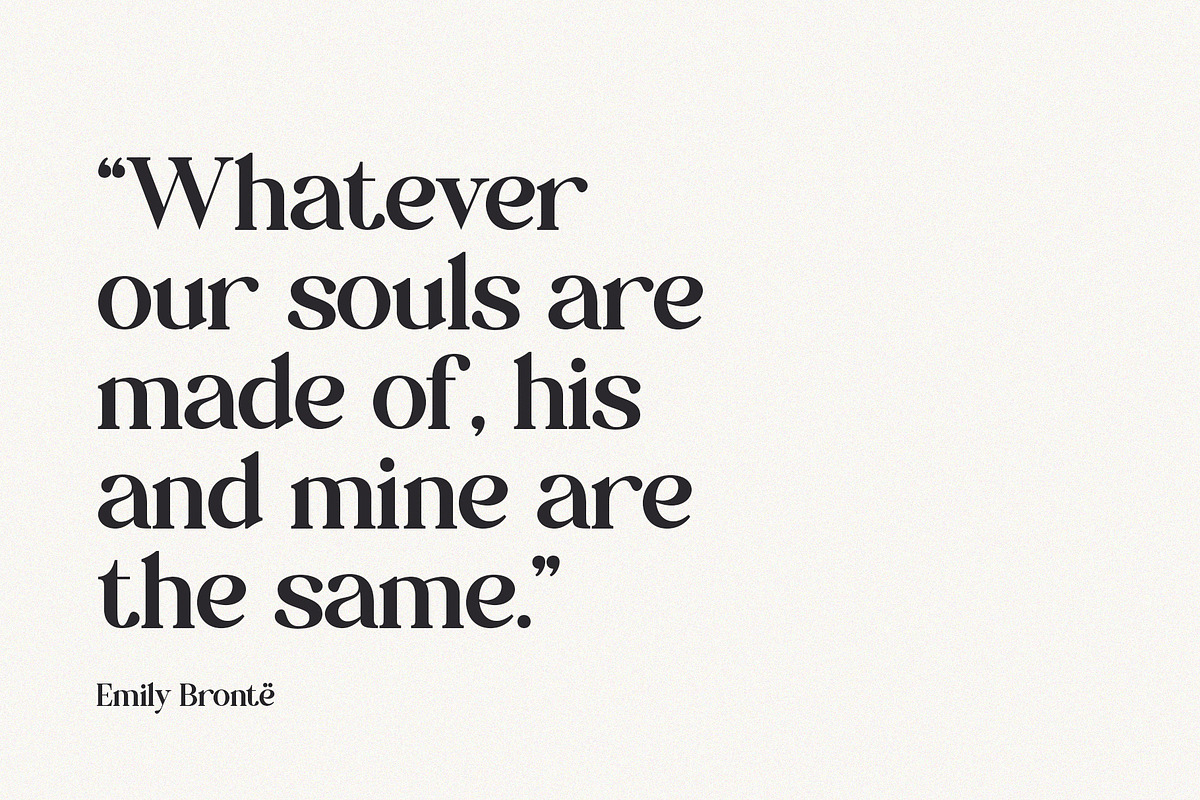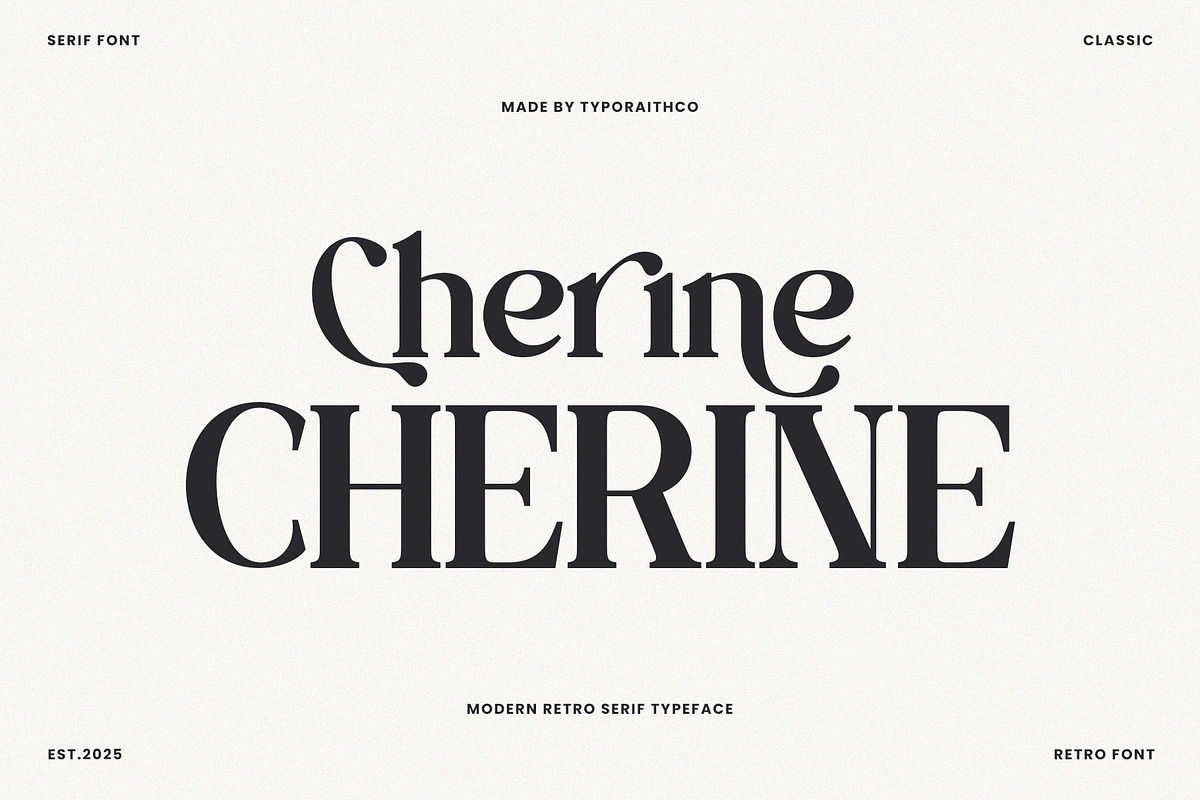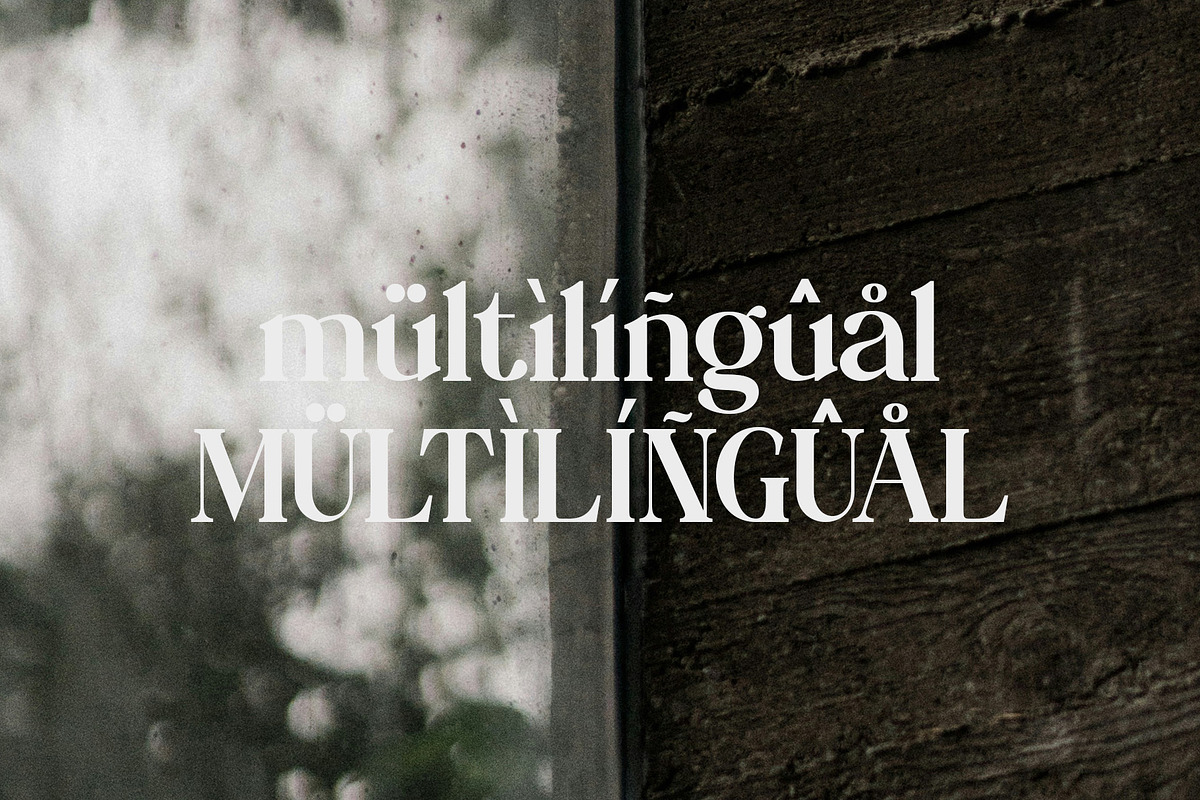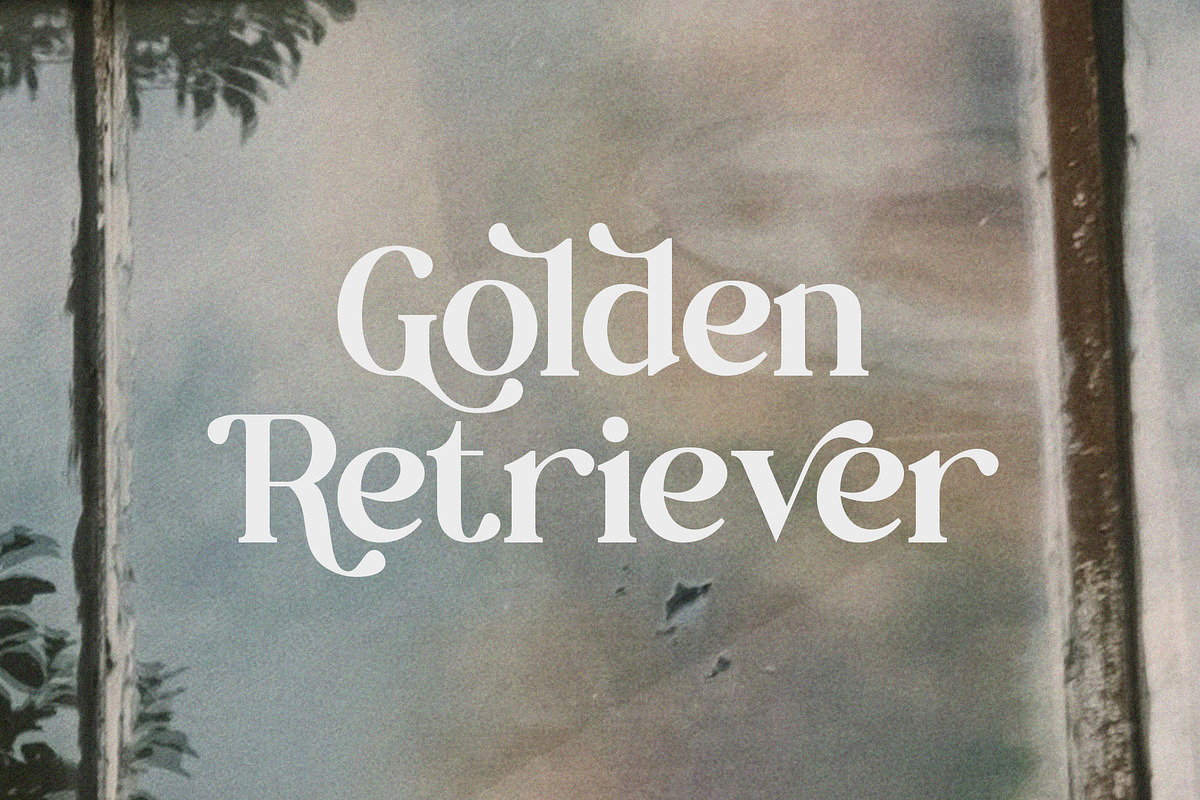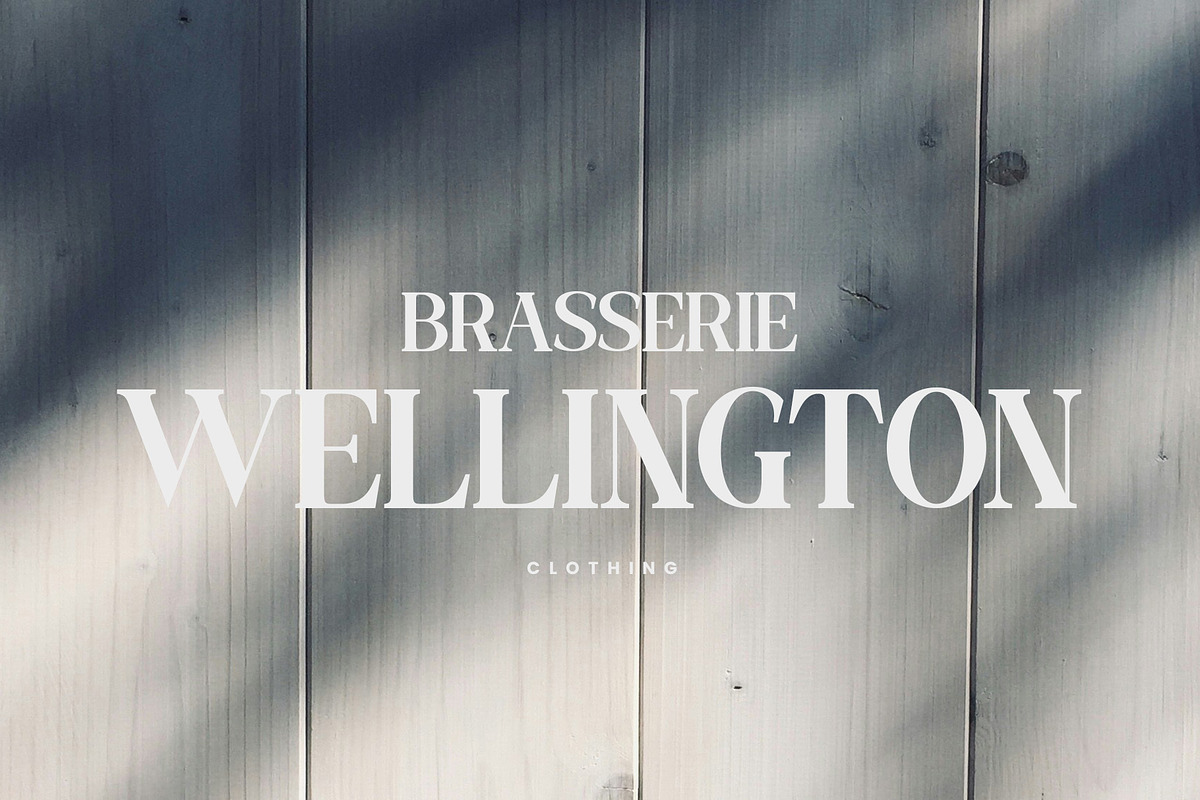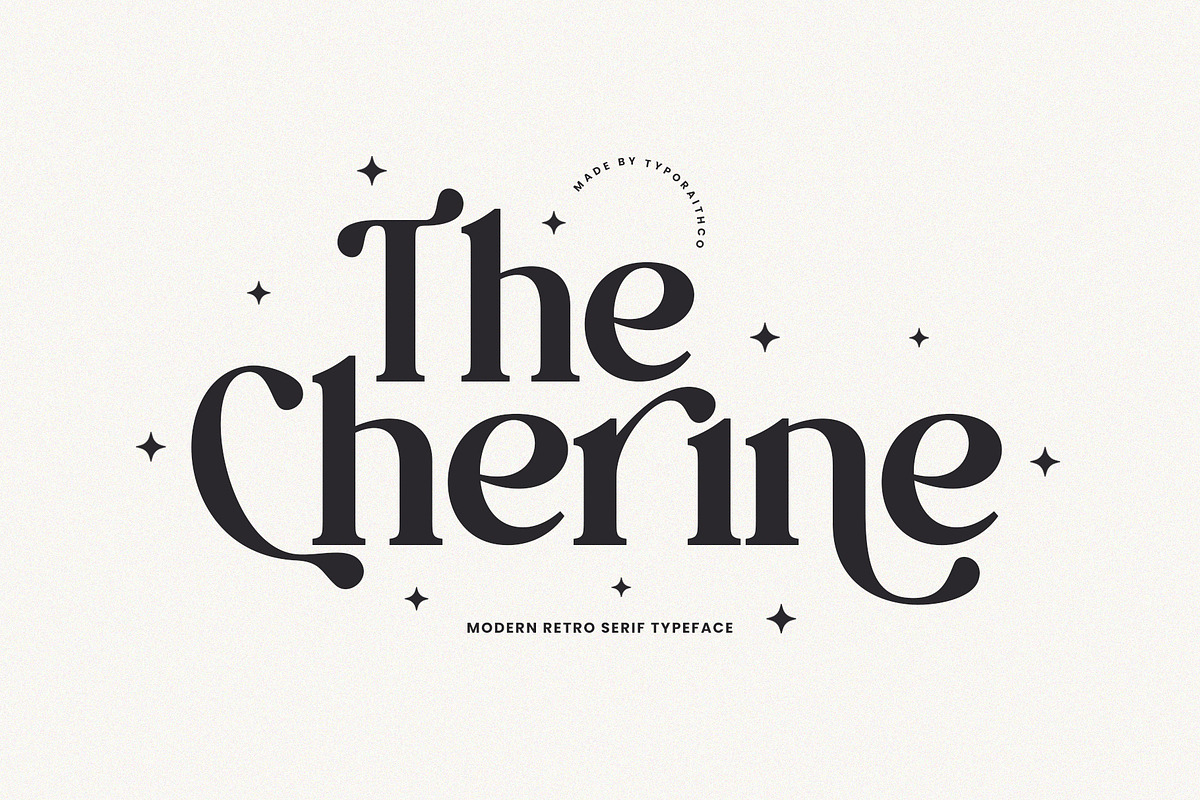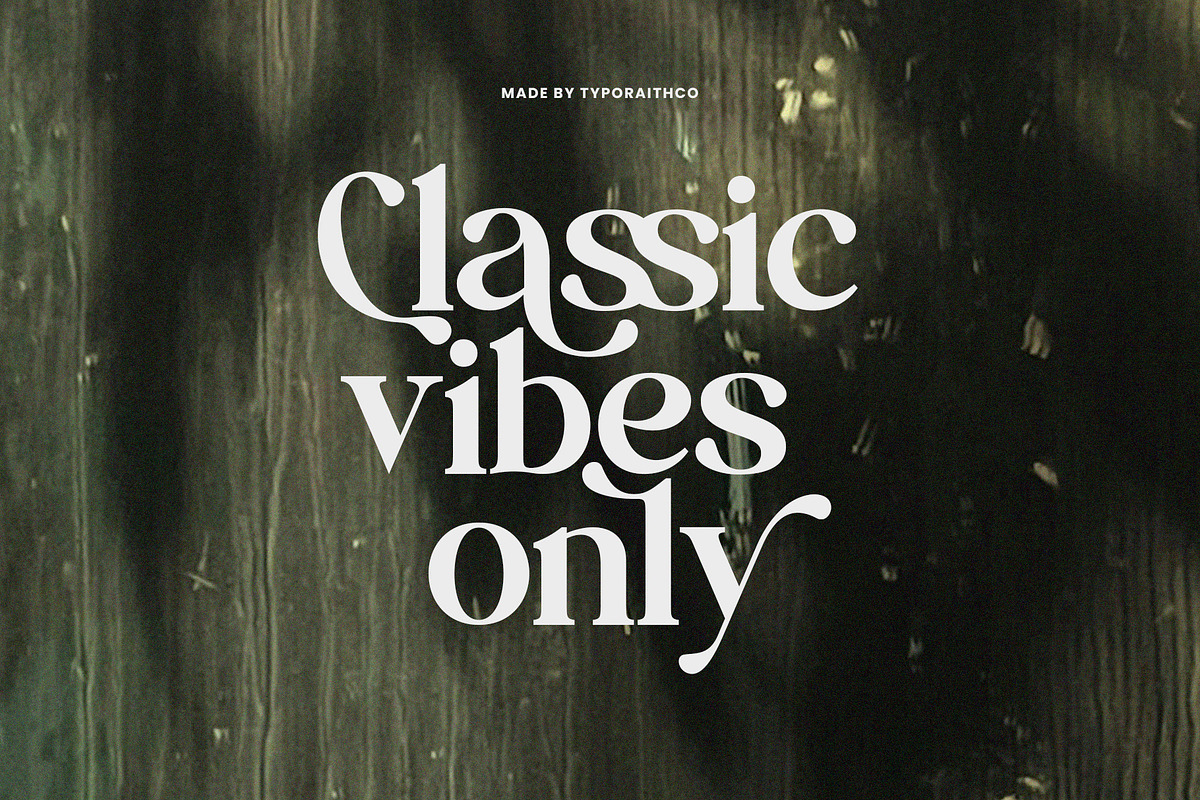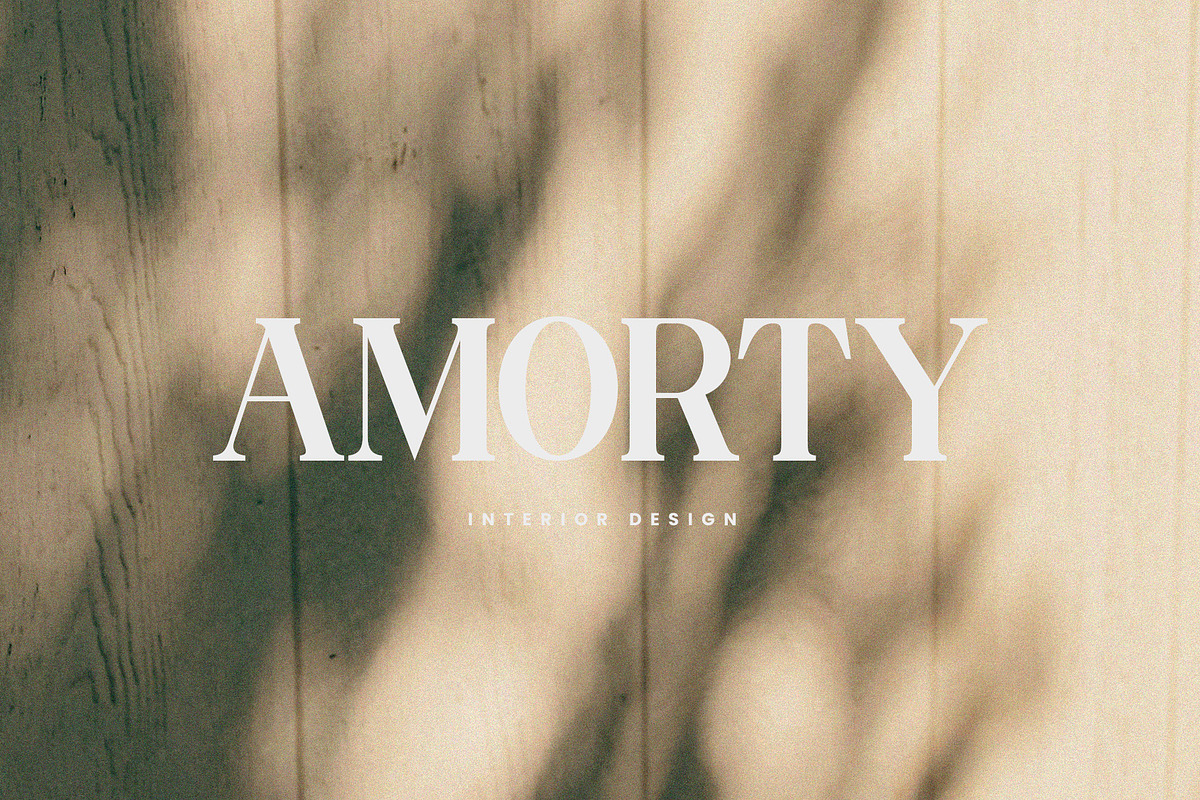
The Cherine | Modern Retro Serif
The Cherine is a stylish modern retro serif typeface that blends timeless elegance with a playful vintage touch. Featuring bold curves, unique letterforms, and charming retro details, this font is perfect for creating standout designs with a nostalgic yet modern vibe.
Ideal for logos, branding, packaging, posters, magazines, invitations, and social media designs, The Cherine adds personality and sophistication to every project. Its versatility makes it suitable for both display headlines and creative typography compositions.
Uppercase & lowercase letters
Alternates & ligatures
Bring a touch of retro elegance to your design projects with The Cherine Typeface!